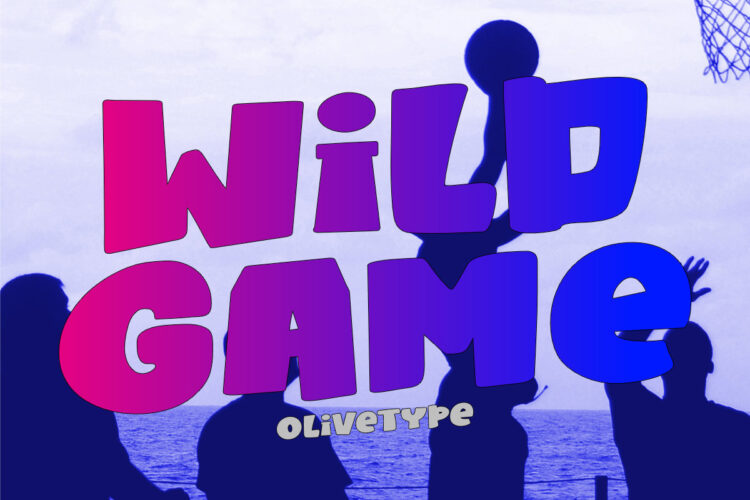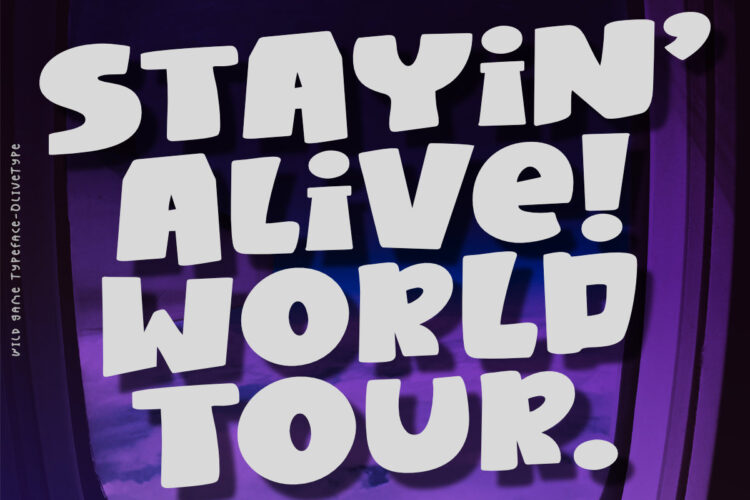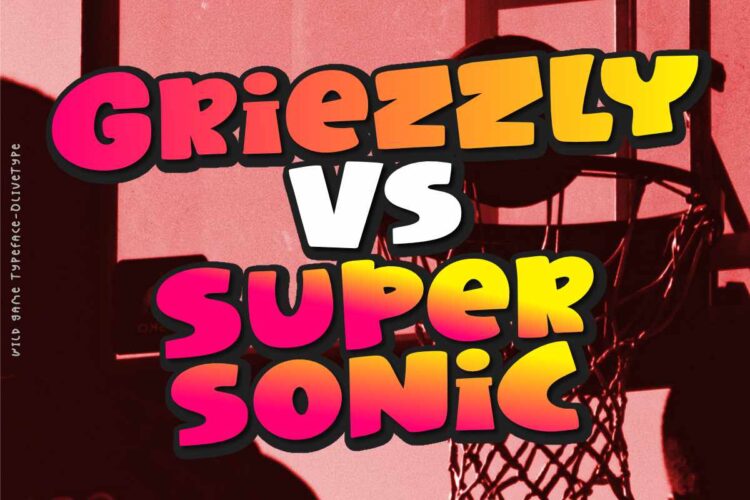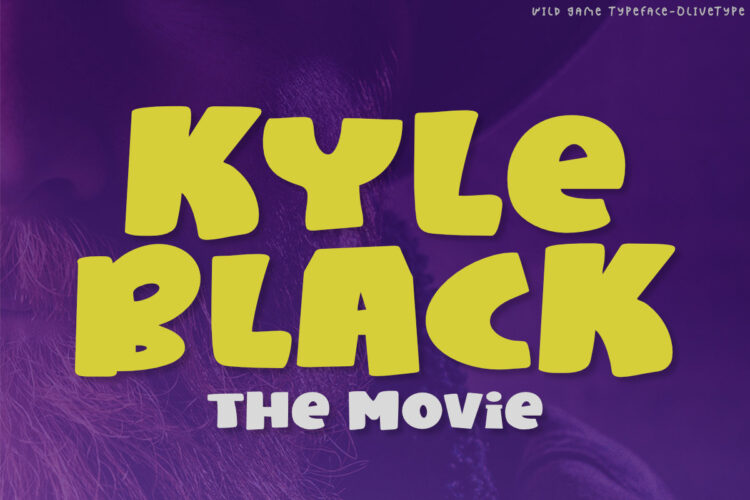
Wild Game is a bold and playful typeface to add a playful edge to your design. It’s dynamic, modern, and instantly recognizable, making it ideal for posters, headlines, and branding. With its bold letterforms that stand out from the crowd, Wild Game creates an impactful statement for your project.